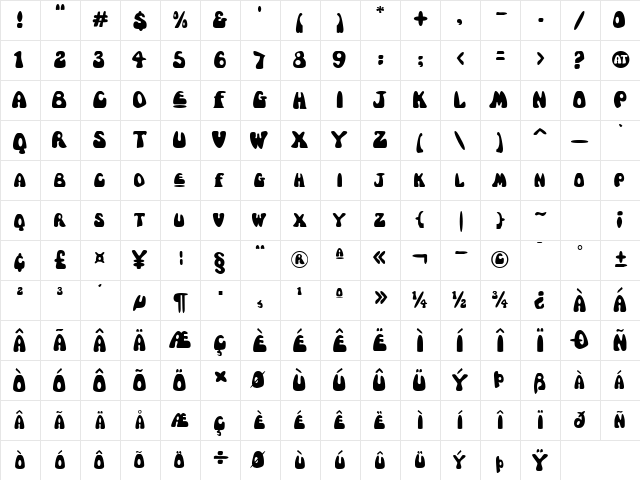
Bollocks Regular
Design Context for Bollocks Typeface
Bollocks is a composed and adaptable typeface that performs quietly and consistently across a wide range of design contexts.